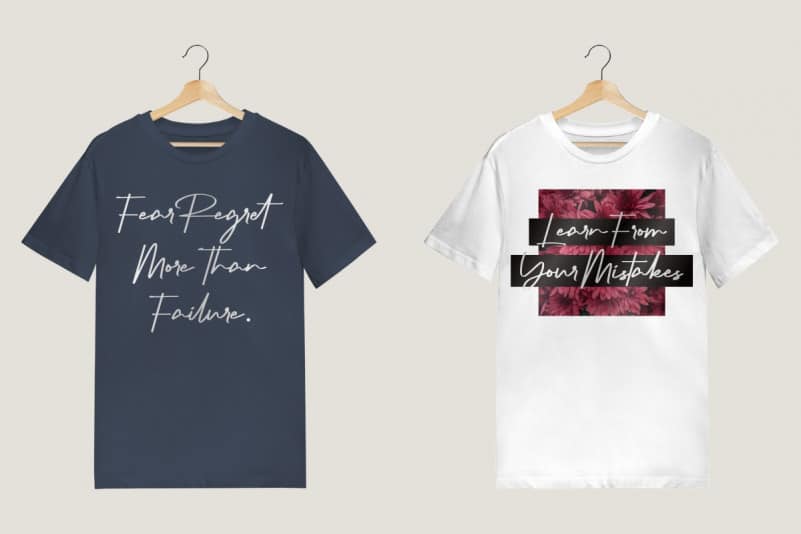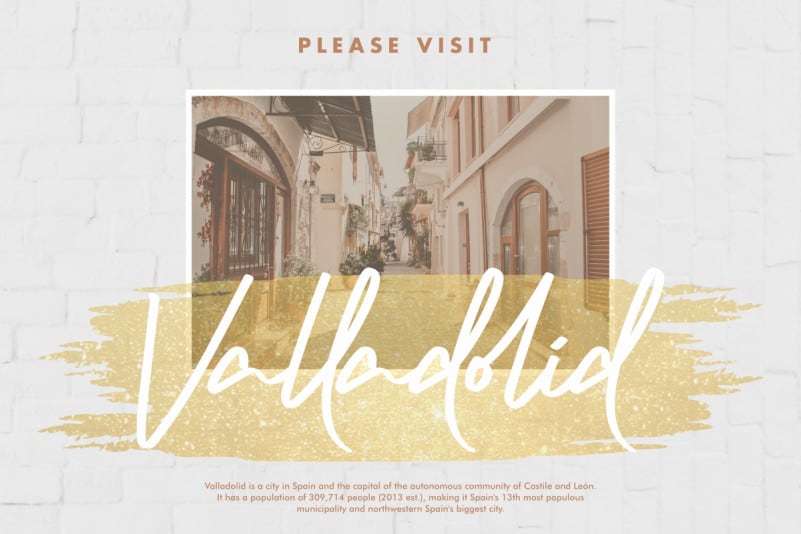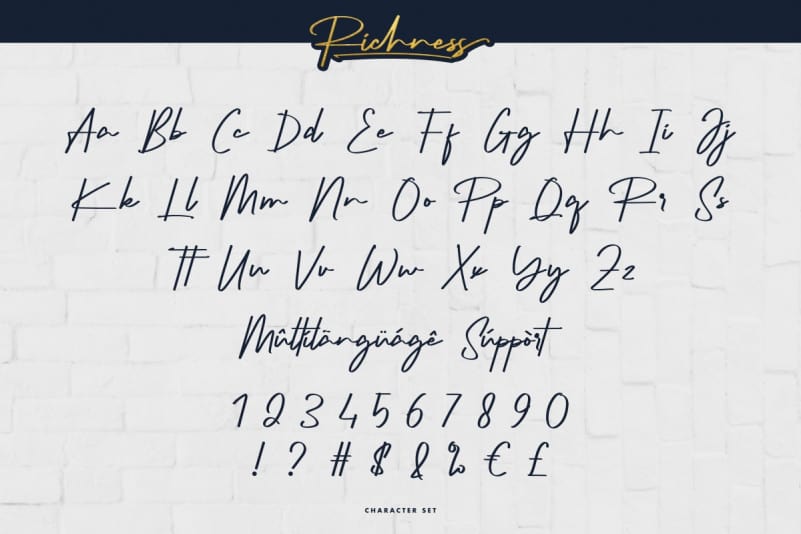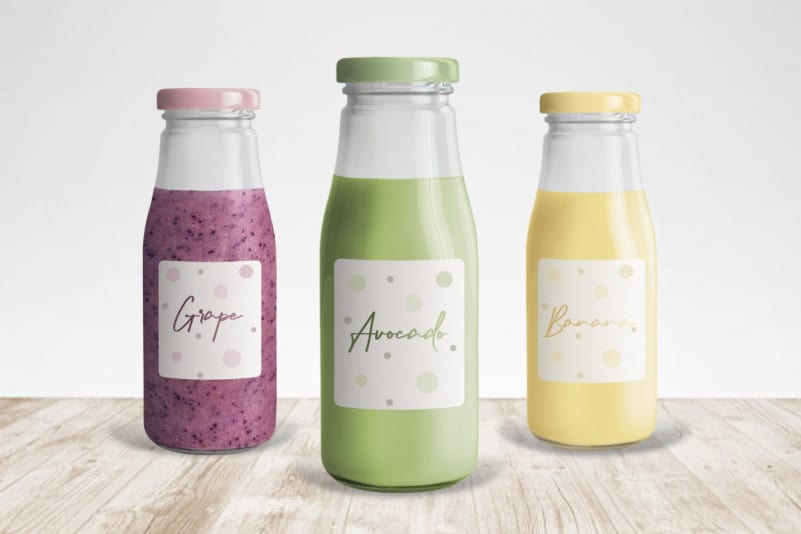
Richness Signature Script Font is our newest product. It is a luxurious signature script Font with an exclusive style. The theme of this font are glamour, signature, modern, elegant, luxury, handwritten, classic and simple lettering.